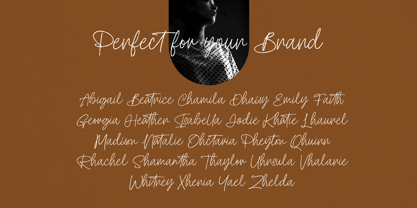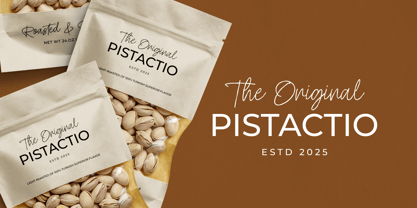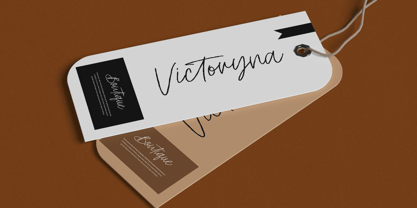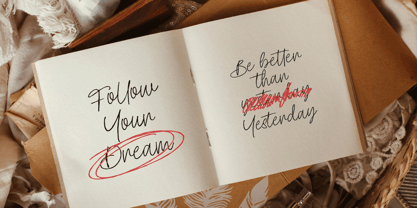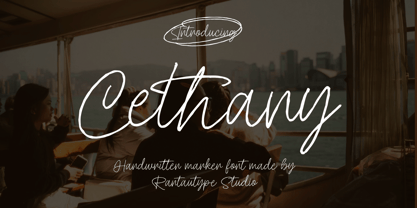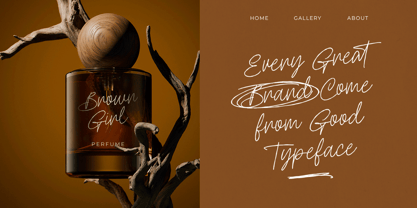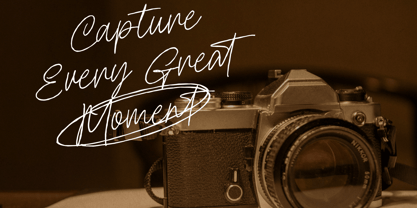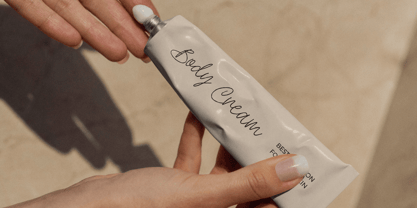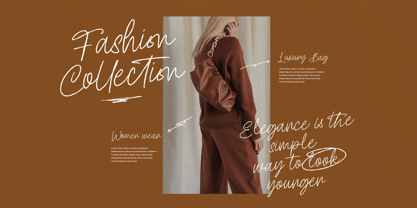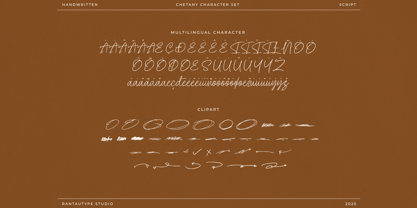
Cethany
by RantauType
The Cethany Font Family was designed by Yudi Pratama Chandra and published by RantauType. Cethany contains 1 styles. More about this family
Cethany is brush handwritten font made with natural texture effect. Cethany is a perfectly choice for any creative endeavor, creating, modern, chic, lifestyle design such as logotype, title, cover, branding, invitations, wedding designs, display and magazine, social media posts, advertisements, printed quotes, product packaging, corporate brand, product designs, labels, photography, watermarks, special events and any other project with handwritten touch.